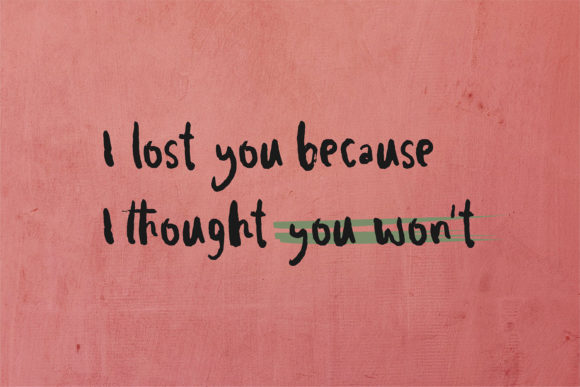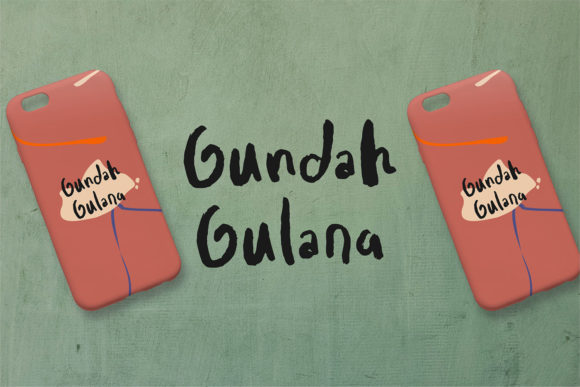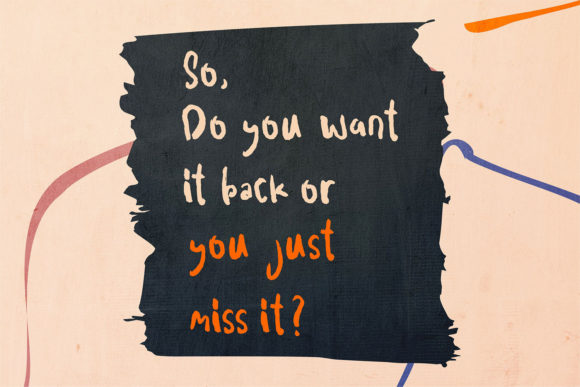
Introduction to Sendu Font
Have you ever been stuck on a design project, unsure of how to bring your creative vision to life? You spend hours searching for the perfect font, only to end up with something that just doesn’t feel right. This is where the Sendu Font comes in – a beautiful, free-flowing handwritten font that’s sure to elevate any design project.
Whether you’re working on a greeting card, branding materials, or a business card, Sendu Font is the perfect addition to take your design to the next level. With its high quality and transparent background, this font is a valuable resource for designers looking to add a touch of elegance and sophistication to their creative projects.
Key Features of Sendu Font
- Designed with a focus on legibility and readability, making it suitable for both on-screen and print use.
- Includes a comprehensive character set, covering a wide range of languages and scripts.
- Perfect for designers, artists, and writers looking for a versatile and stylish design resource.
Honest Review: Sendu Font
As a designer, I’m always on the lookout for high-quality design resources to elevate my creative projects. Recently, I had the chance to try out the Sendu Font, and I’m excited to share my honest review.
- Clean and Minimalistic Design: Sendu Font has a clean and minimalist design that makes it perfect for modern designs and projects.
- High-Quality Vectors: The font comes with high-quality vectors that can be easily scaled and manipulated without losing any quality.
- Limited Character Set: Sendu Font has a limited character set, which may not be ideal for designers who need a font with a wide range of characters.
Overall, I’m impressed with the Sendu Font, and I think it’s a great addition to any designer’s toolkit. While it has some limitations, its high-quality design and free download make it a valuable resource for any creative project.
Use Sendu Font in conjunction with a transparent background to create a clean and minimalist design. Experiment with different font sizes and colors to add depth and visual interest to your design. Sendu Font is a versatile design resource that can be used in a variety of creative projects.
Sendu Font is commonly used in graphic design, digital art, and typography. It’s perfect for creating logos, graphics, and illustrations for websites, social media, and marketing materials. Its high-quality design and transparent background feature make it an ideal choice for designers looking to create professional-looking designs.